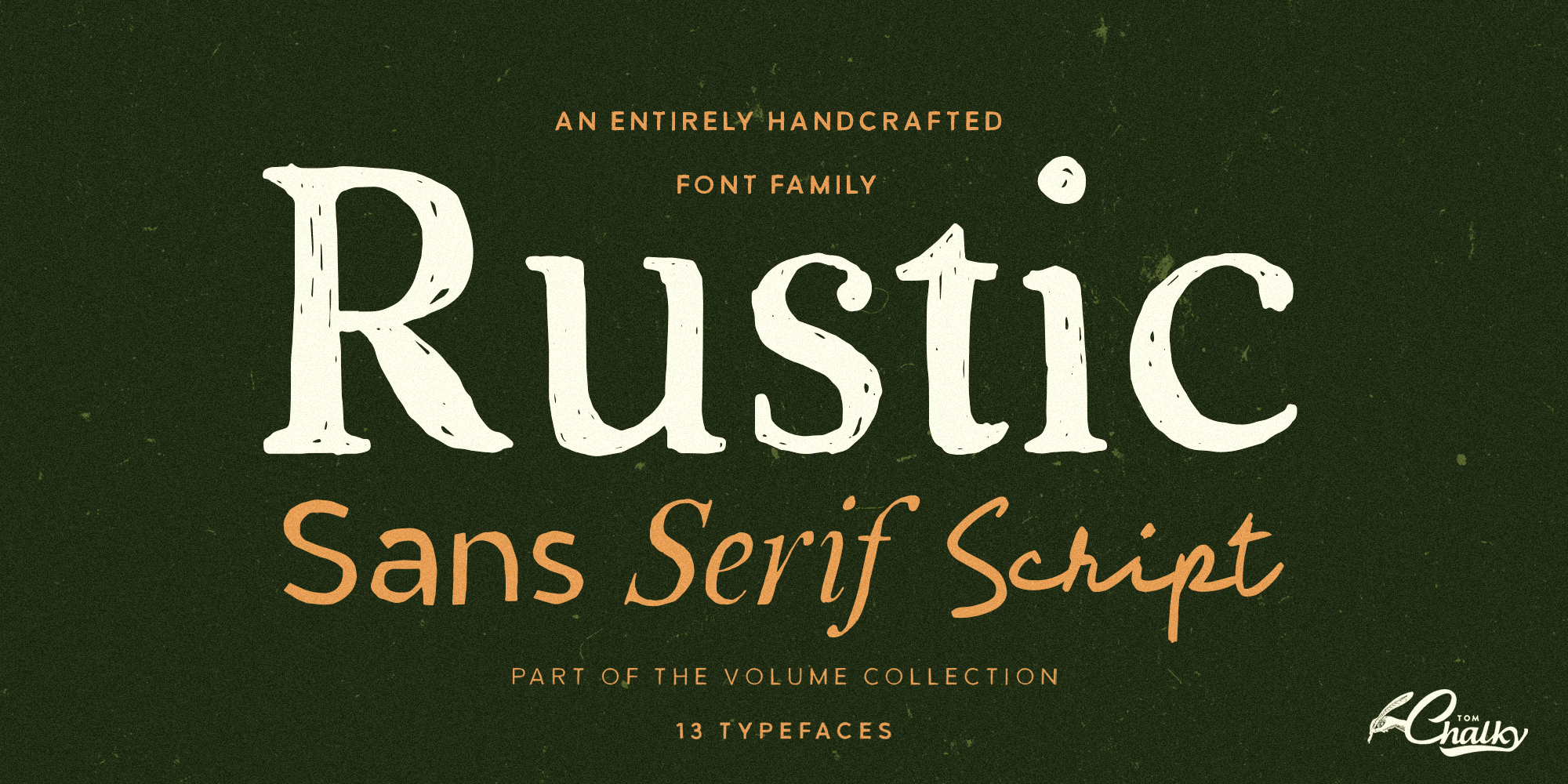
Rustic TC Font is perfect for farmhouse branding, country restaurant menus, artisanal food packaging, vintage barn signage, rustic wedding invitations, craft brewery labels, outdoor adventure gear, and handmade product branding that requires authentic countryside typography with weathered character.
This Rustic TC Font is exciting because it authentically captures the charm of weathered wood and hand-painted barn signs, featuring distressed letterforms with organic imperfections that convey genuine rustic character while maintaining excellent readability for modern commercial applications and authentic country aesthetics.
The Rustic TC Font family includes distressed weights with authentic weathered styling, complete character sets with uppercase and lowercase letters, rustic numerals, country-style punctuation, and decorative elements that provide comprehensive typography solutions for farmhouse design and rural branding projects requiring genuine countryside appeal.
Perfect for creating authentic country communications and artisanal brand identities, Rustic TC Font Free Download delivers the weathered countryside typography that transforms modern text into nostalgic connections with rural heritage. This distinctive typeface brings the honest simplicity of farmhouse living into contemporary design, making it essential for projects celebrating country lifestyle, handcrafted authenticity, and rustic charm with genuine character.